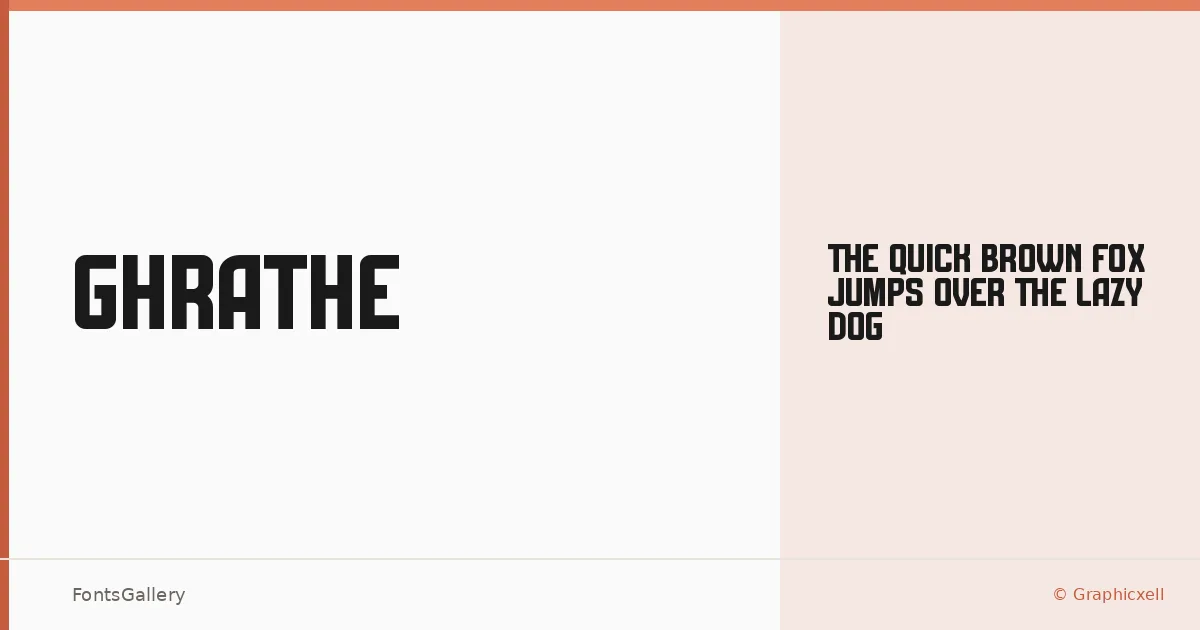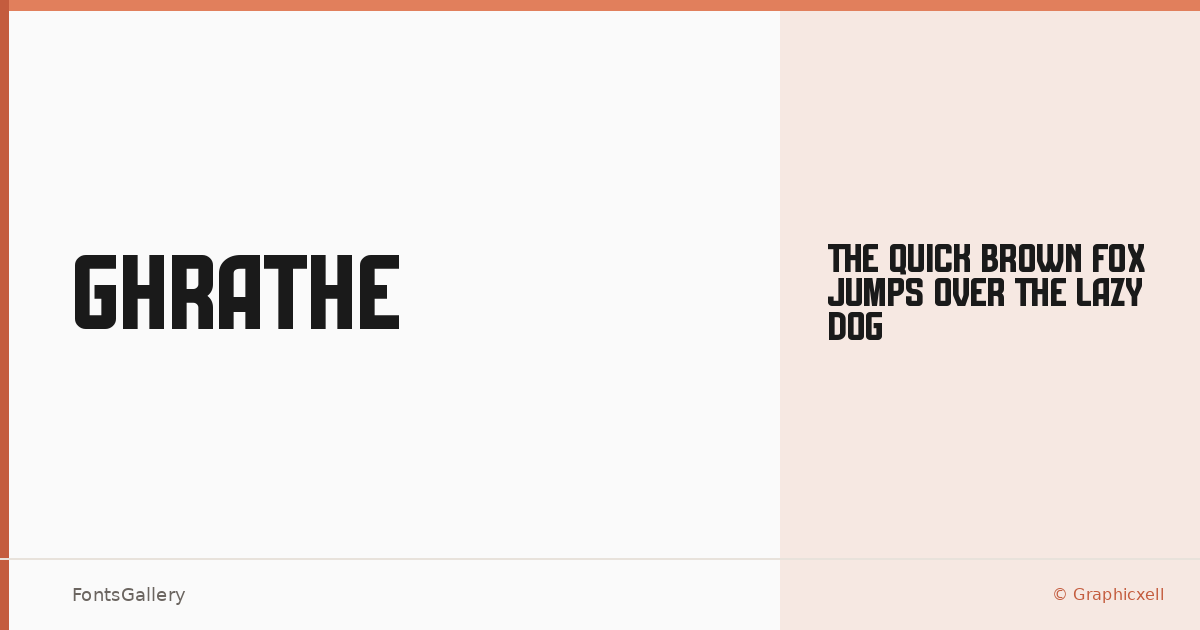
About Ghrathe Font
There is a sharp, constructed energy to these letterforms — the kind of geometry that feels deliberate rather than decorative. Ghrathe was designed by Usman Albaehaqi for Graphicxell, and it arrives as a single Regular weight built for situations where the type needs to carry visual authority on its own.
This is a display face with a futuristic, modern sensibility — the sort of type that reads as professional without softening its edges. The TTF file covers Latin and holds up cleanly at large sizes, which is exactly where a bold, headline-driven design belongs. There are no light or condensed companions here; the single cut makes its case with confidence rather than range.
The face earns its keep on posters, brand identities, logos, and T-shirt graphics — anywhere a headline needs presence rather than subtlety. For body copy or supporting text, it pairs well with clean neutrals like Helvetica or Aileron, and works alongside Aresink, Aranea, or Alexandria when a project calls for a more curated typographic pairing.